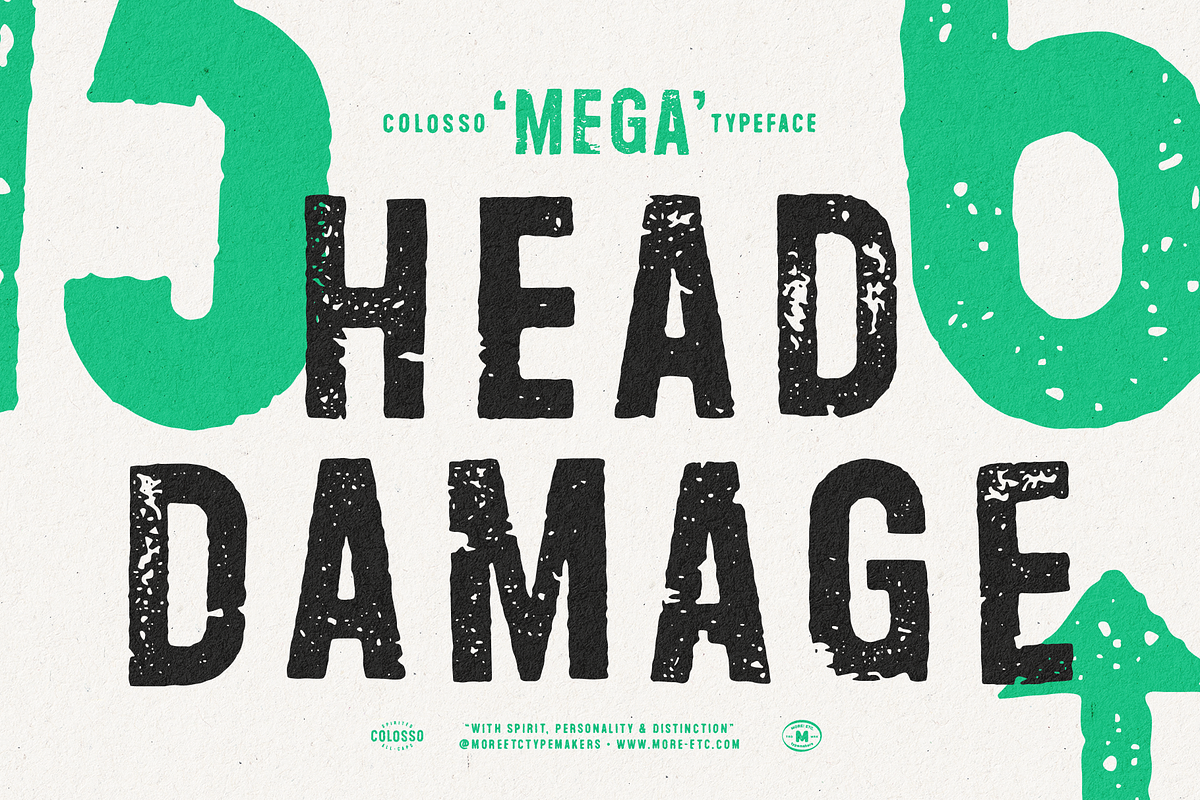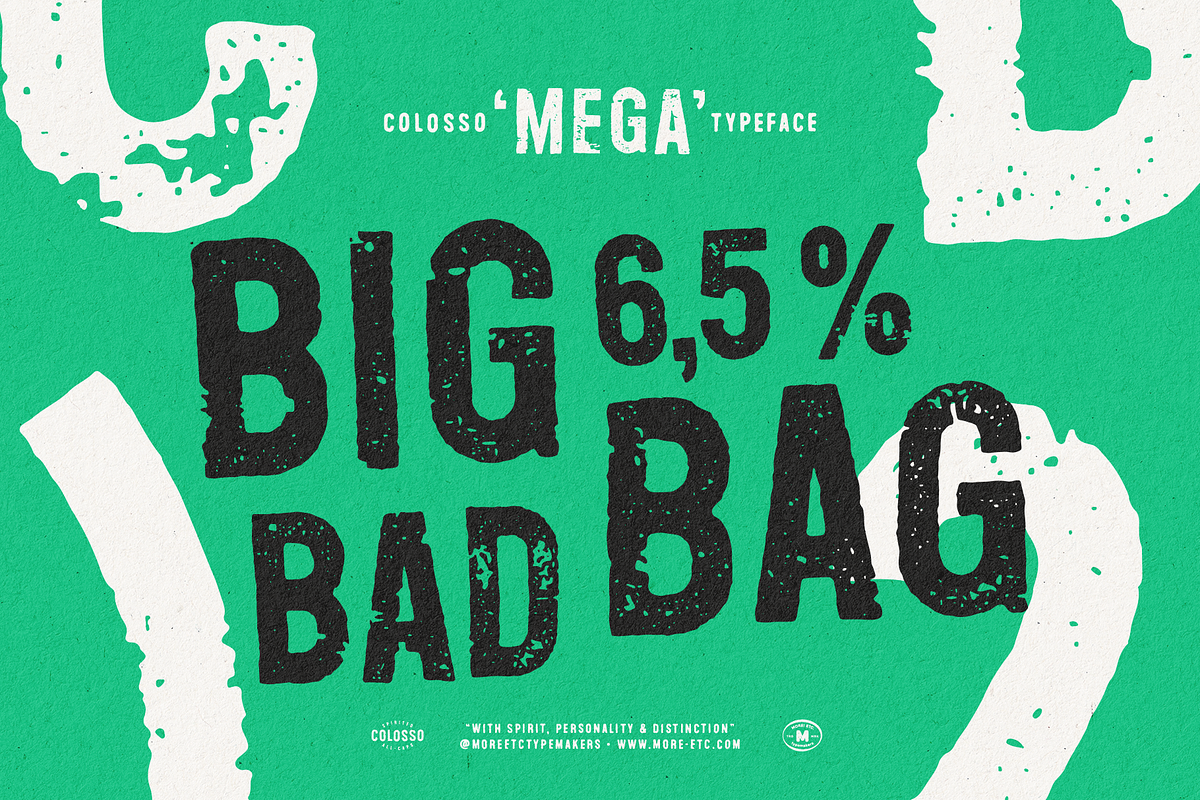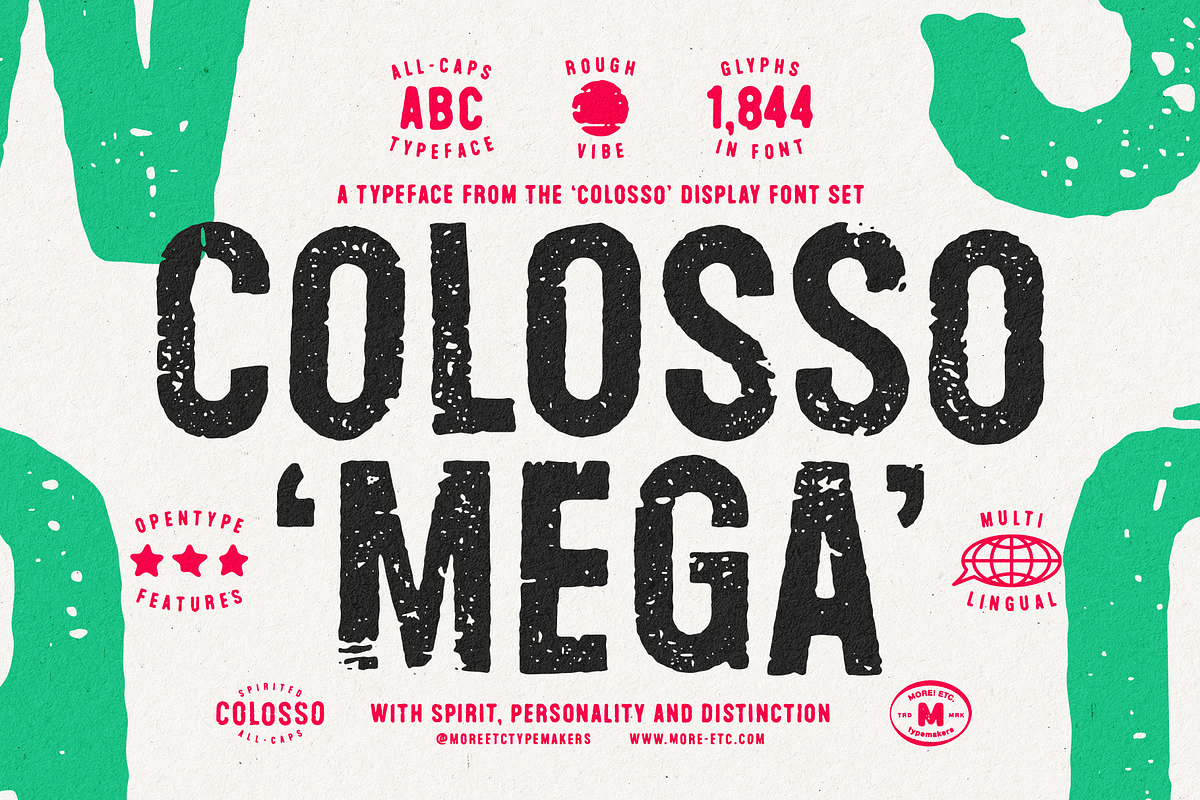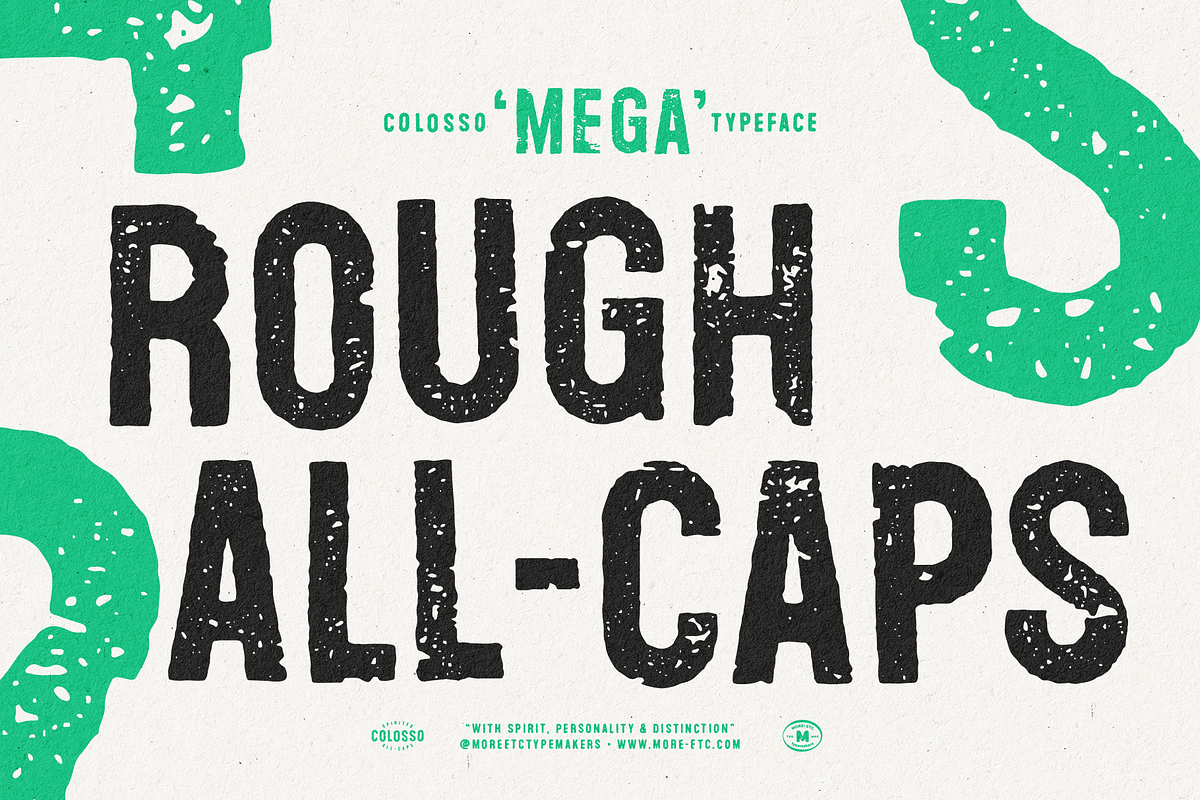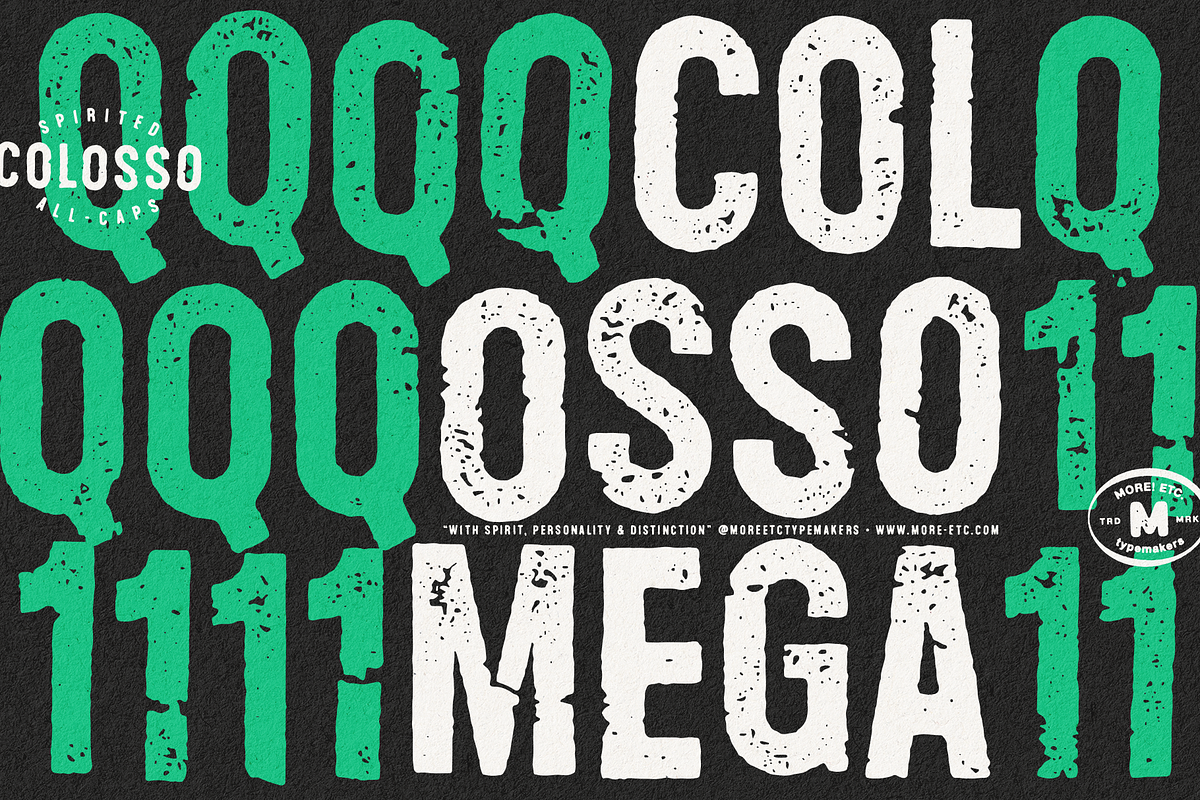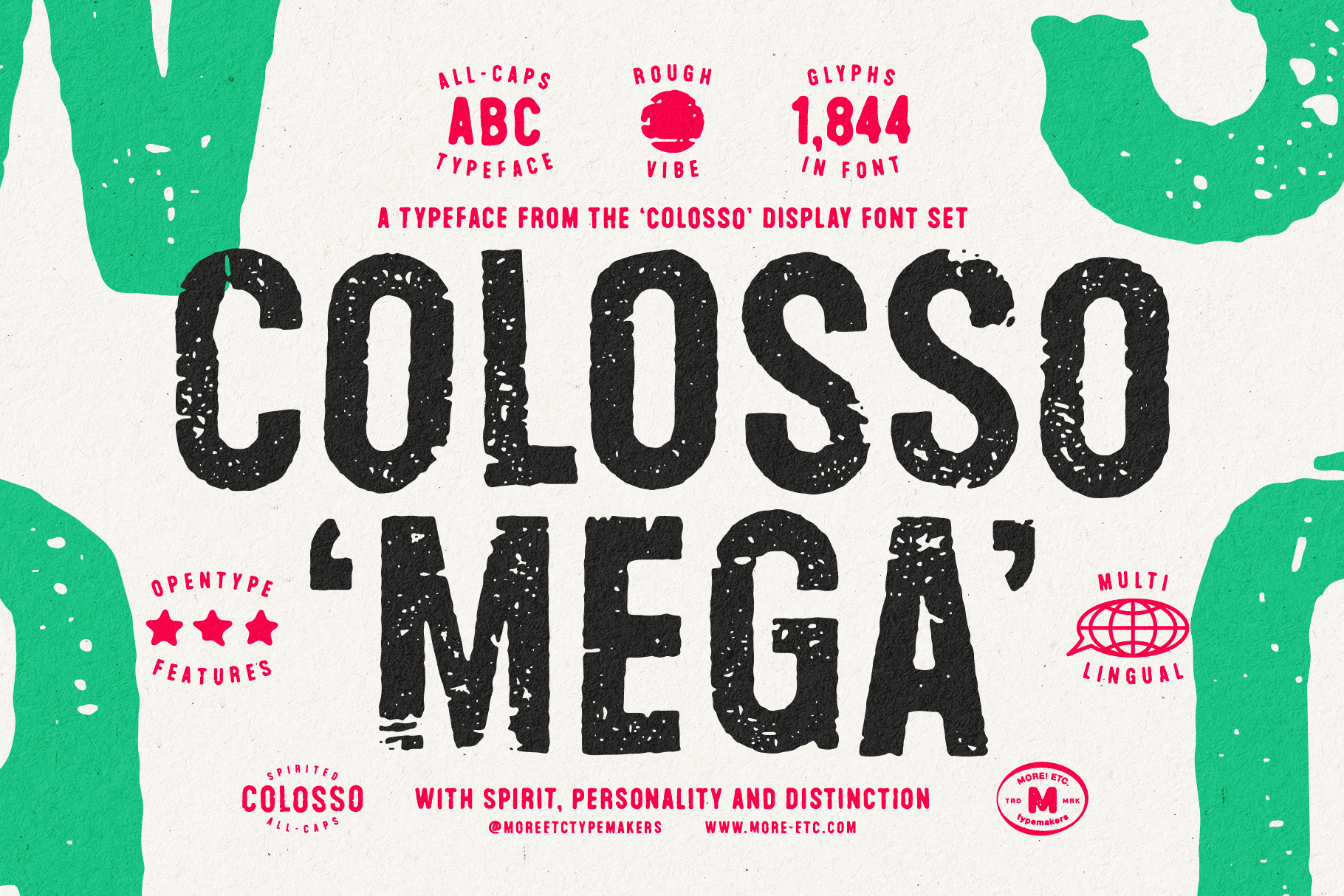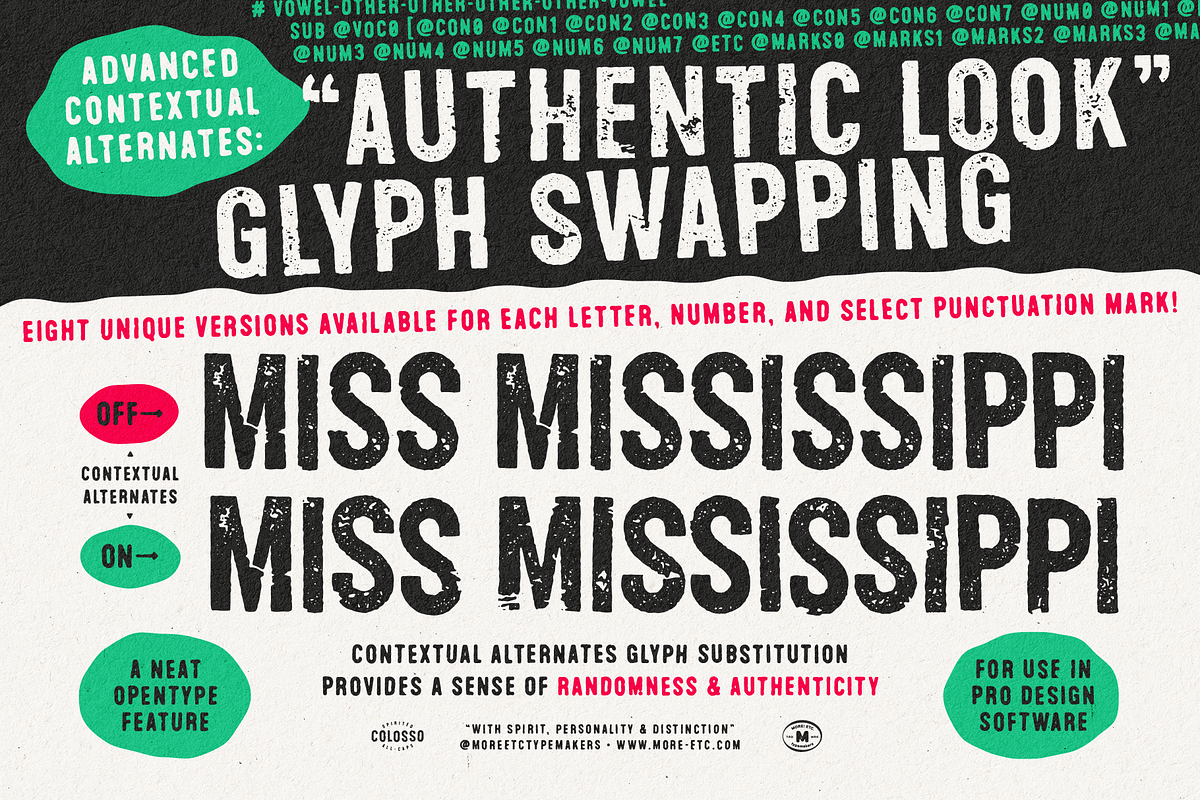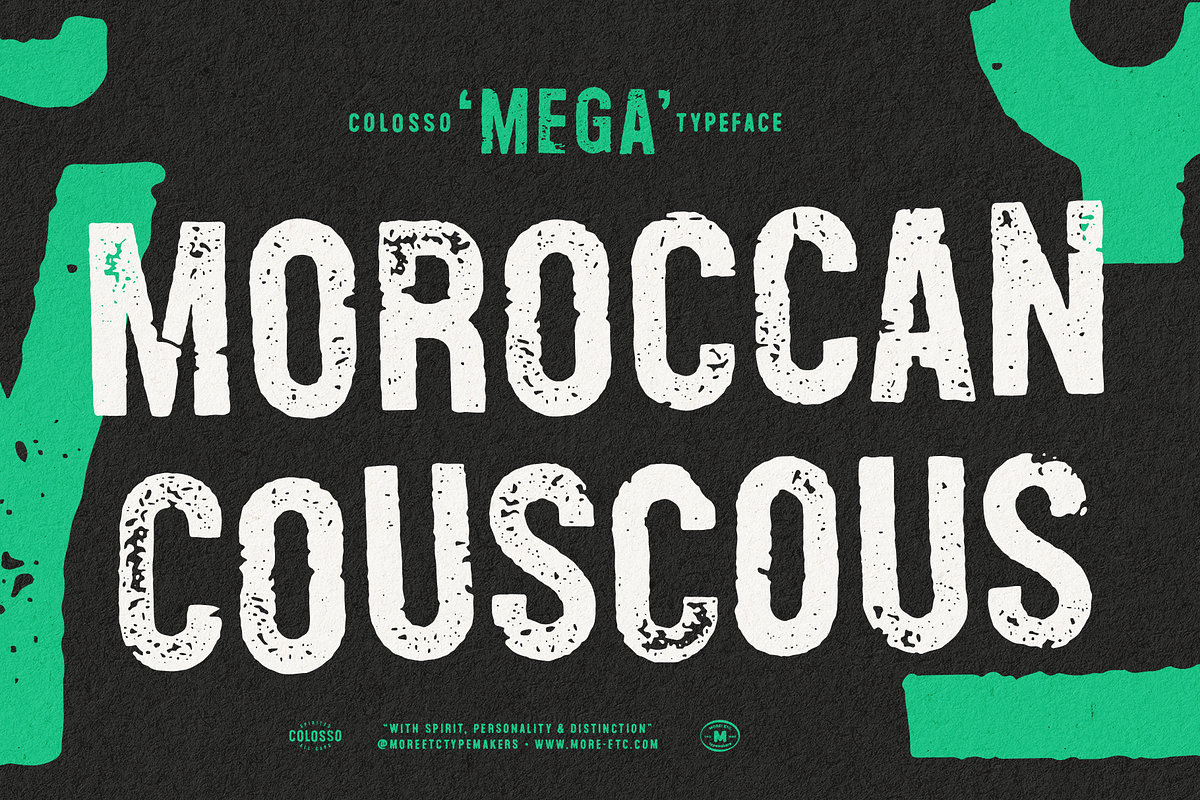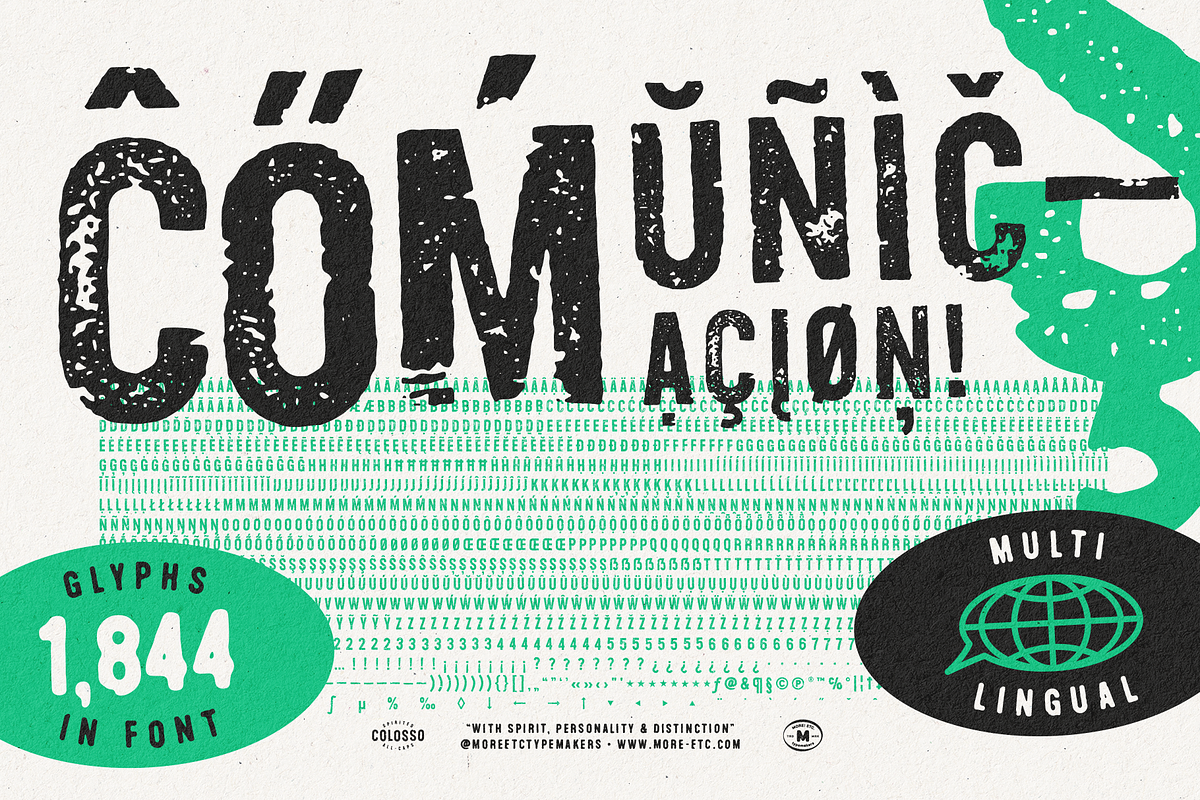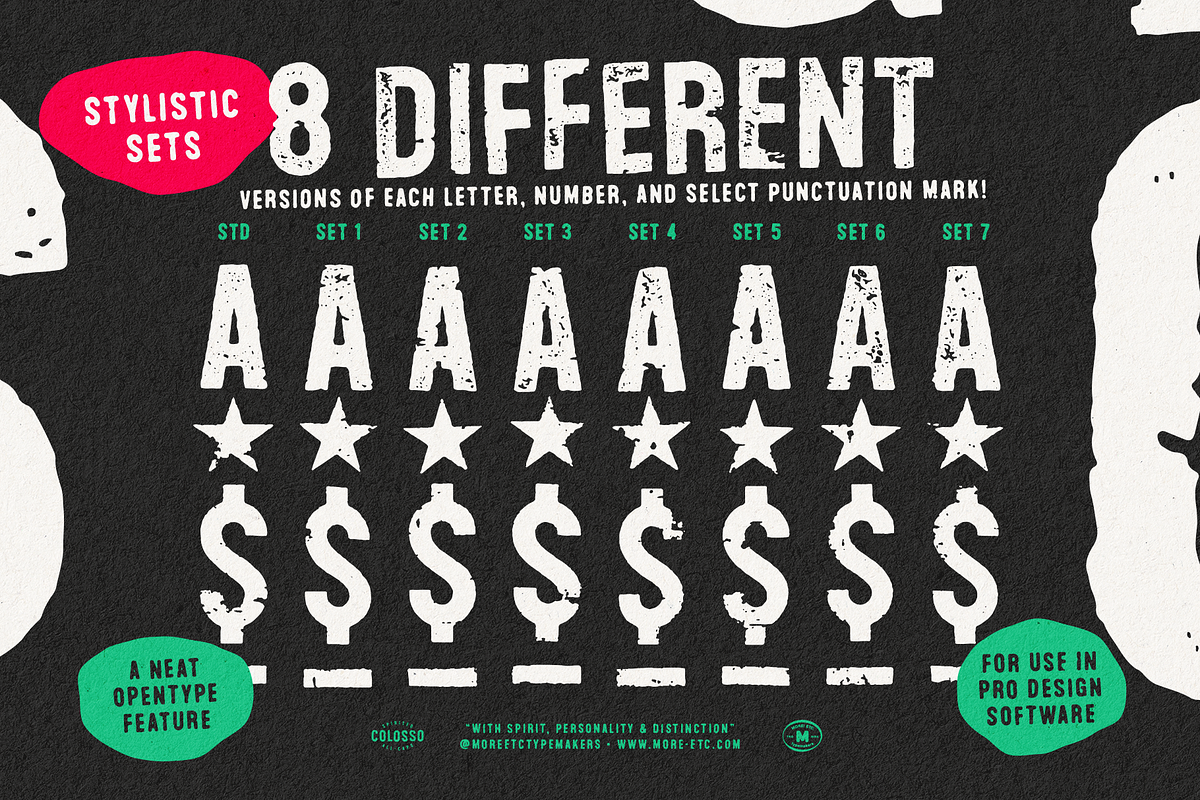
Colosso Mega Display Font
Colosso Mega is a typeface from the Colosso’ Display Font Collection – a curated collection of four distinct and matching fonts with varying degrees of textures, details and grit.
Step into the world of 'Colosso,' a collection of all-caps display fonts that transform typography into an artistic masterpiece. Drawing inspiration from the rich legacy of transfer lettering and vintage printing techniques, this collection is a tribute to the human imperfections inherent in handcrafted printmaking. It embraces the DIY aesthetics reminiscent of old fanzines, echoes the typographic expressions found in mid-century artworks, and channels the rebellious spirit of vintage punk flyers. Immerse yourself in the analogue authentic look of these typefaces – a purposeful departure from the sterile precision of computer-made fonts. Welcome to 'Colosso,' where every character is a bold statement in the art of display font design.
Colosso Mega – Rough and gritty with attitude
Channeling the rebellious energy of ink-stamped lettering gone rogue, 'Mega' is designed for big text sizes. Ideal for bold statements and impactful messages, it injects a raw and gritty attitude into your designs.
OpenType – Advanced Contextual Alternates
Unlocking a realm of design possibilities, the 'Colosso' Font Family introduces an innovative OpenType feature – Advanced Contextual Alternates. Within this feature, all four fonts in the collection showcase a dynamic and advanced OpenType capability. Each letter, number, and select punctuation mark boasts 7 alternate glyphs, providing a total of 8 unique variations for every character. Activating the Contextual Alternates feature (calt) in your OpenType-friendly application triggers a captivating cycle through classes of vowels, consonants, numbers, and marks. This results in a delightful interplay of characters, introducing a sense of randomness and infusing an unparalleled authenticity into your design projects. Witness your creations come alive with an organic, ever-changing rhythm, courtesy of this neat feature.
The 'Colosso' Font Family boasts an extensive set of diacritics, catering to a wide array of Latin languages. Break language barriers with support for 285 languages, making 'Colosso' your truly global companion in creative expression.
Why 'Colosso'?
This font collection transcends conformity; it's about standing out. With a focus on authenticity, passion, and personality, 'Colosso' is the choice for designers who refuse to settle for the ordinary. Each character in this collection is a testament to the power of distinctive, genuine expression in the world of design.